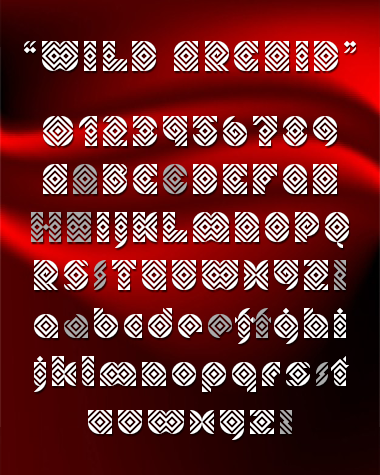
@h1k765: Yeap, I've tried hard to make the letters more or less recognizable.
@dukom: I think there are dozens of fonts with the name hypno, but you're right, it has that hypnosis feel, that's why hypnosis tag was added.
And about the name, some of the variations were Fouriarchi, Fourarchy, cause it reminded me of four's work :)
When the circular wedge bricks came out, I didn't think they could be used for much. Thanks for schooling me. Really cool and and patient use of brick stacking the small triangles. Its like controlled psychedelia.
A good decorative design.
Or wild.
alternate name - hipno :)